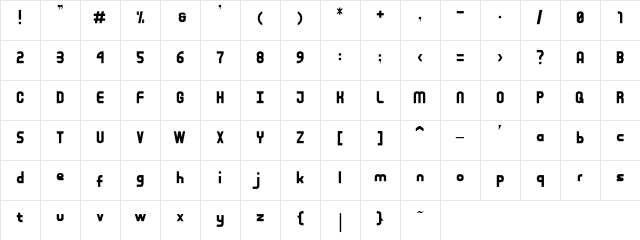
Buman Reguler
Style: Reguler
Buman Family
Buman Reguler
Design Context for Buman
Buman is a composed and adaptable typeface that performs quietly and consistently across a wide range of design contexts.